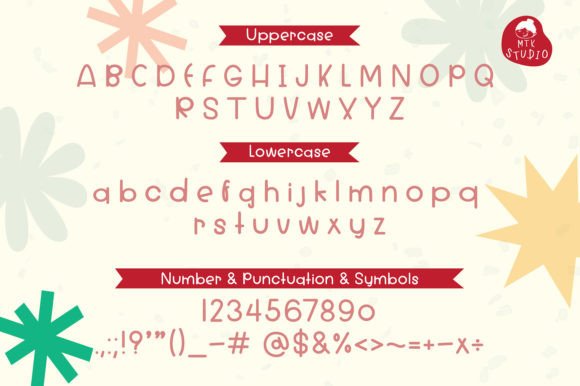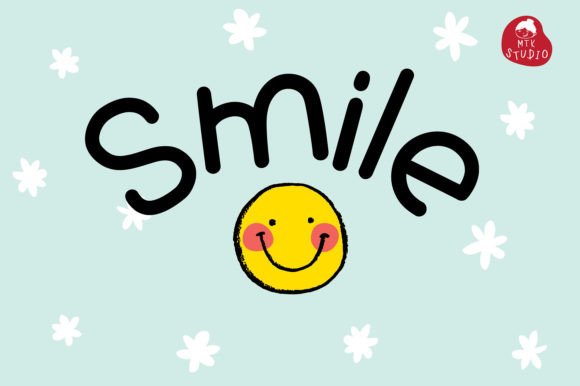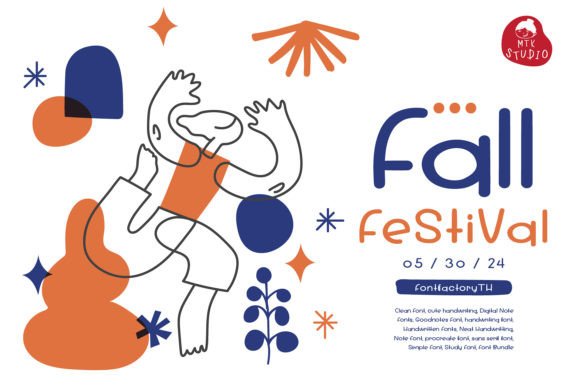
Red Macaron Font Font
Red Macaron is a sweet and friendly handwritten font. Its natural and unique style makes it incredibly fitting to a large pool of designs. The only limit is your imagination!